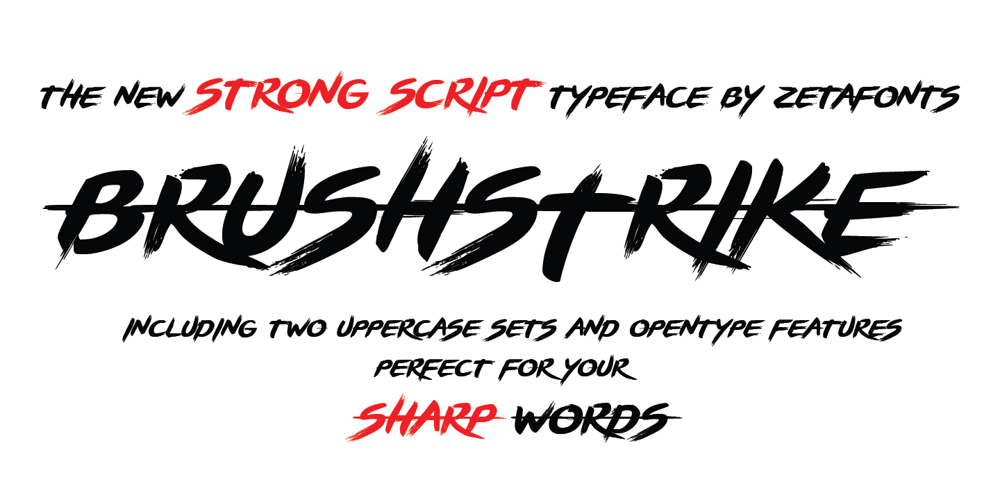
Brushstrike Font Family was designed by Francesco Canovaro and published by Zetafonts. Brushstrike contains 2 styles and family package options. The Brush Strike Family is an exercise in dynamic, gestural brush type design by Francesco Canovaro. The typeface contains no lowercase set, but it doubles the uppercase with a strikethrough alternate set to be used for dynamic logo design and unusual word highlighting. Two weights are available with consistent design: the light weight (Brushstrike Light aka Lightstrike) can work together with the heavier regular weight but can also be used in white on dark background for light effects.